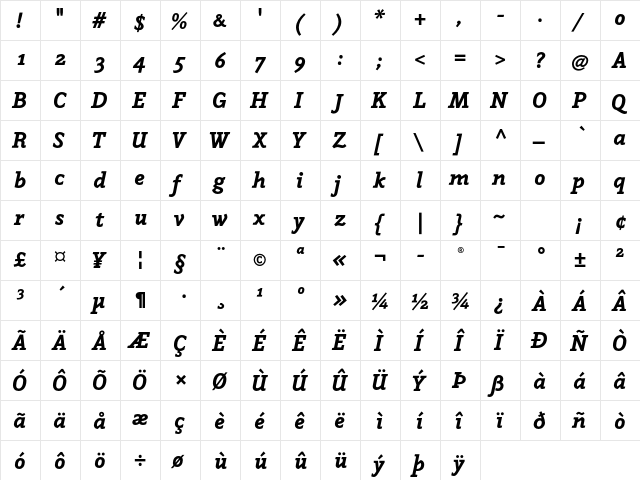
Napoleone Slab ITC Std BlackIt
BlackIt ·  Silvio Napoleone ·
DesignerSilvio Napoleone
Design Context for Napoleone Slab ITC Std Typeface
Napoleone Slab ITC Std combines the readability of serif typography with the visual weight of a slab construction, resulting in a typeface that feels both authoritative and approachable.
Works well in editorial design, news publishing, impactful branding, and poster typography.
Pro Tip: Try Napoleone Slab ITC Std set tight in headlines for a classic editorial feel. Its slab serifs create strong horizontal rhythm that anchors a page layout.